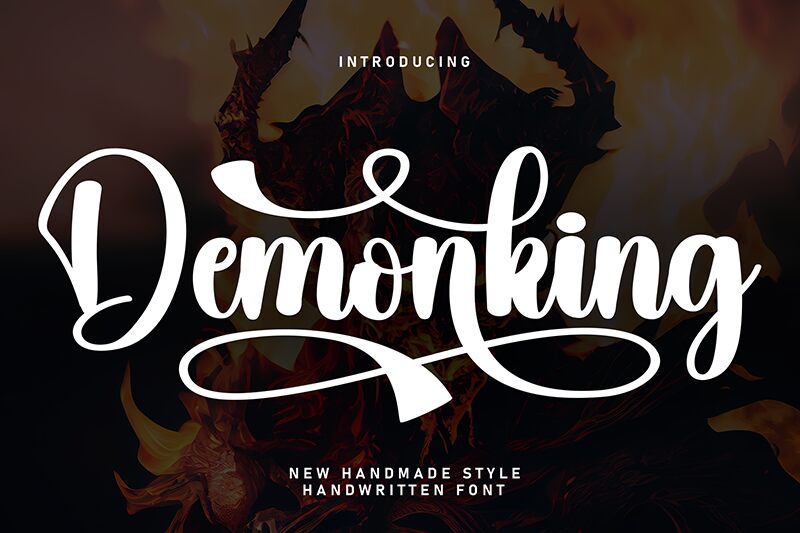
Demonking
Demonking font is a free handwritten font designed with care by Scratchones to capture the beauty and authenticity of hand lettering. The elegant font features a flowing design that combines delicate curves with expressive yet clear characters and glyphs. With unique high-contrast fonts, exceptional readability for modern aesthetics, and decorative flair, this logotype displays a special touch.
It is great for product packaging, invitations, event cards, journals, headlines or titles in magazines or books; and social media posts. Bloggers will also benefit from using this versatile tool whenever they find themselves stuck on ideas because it never fails them!